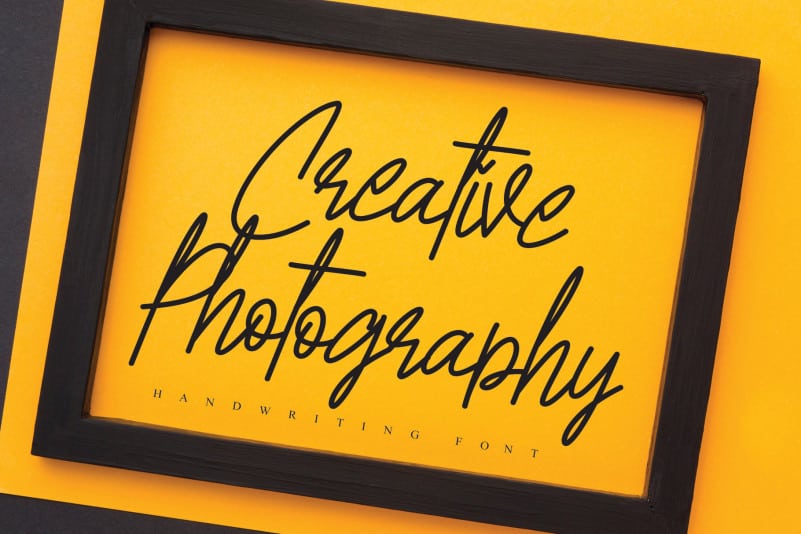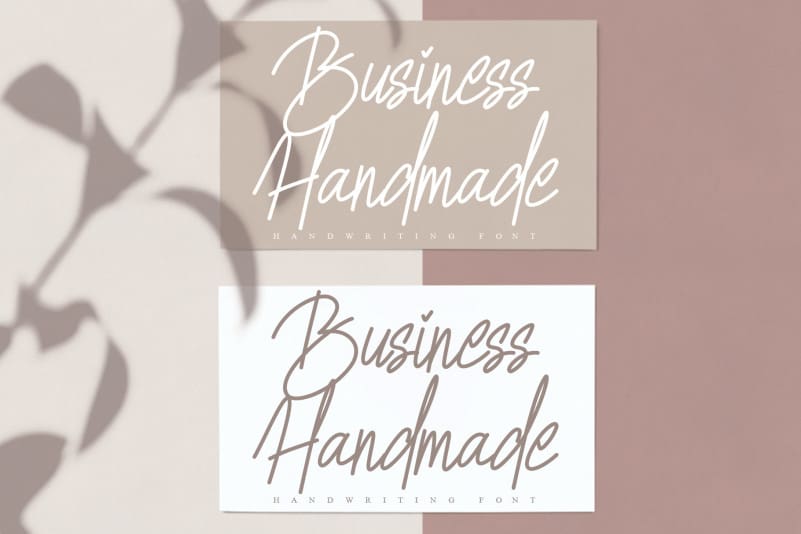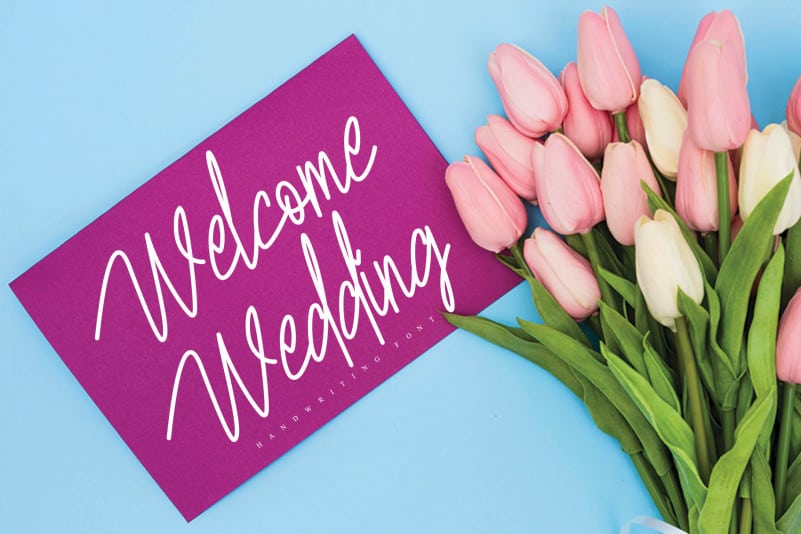
Adorable Signature Handwritten Font
Introducing Adorable Signature Handwritten Font. the latest style letters are perfect for wall displays, wedding invitations, social media post logos, advertisements, product packaging, product designs, labels, photography, watermarks, invitations, stationery, and any project that requires taste handwriting.